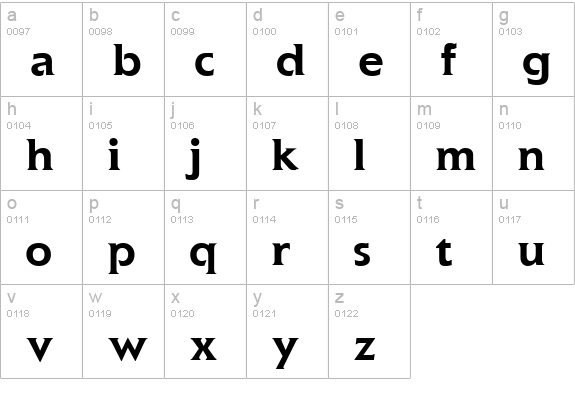
Elan Bold is a strong, high-contrast variant in the Elan typeface family \xE2\x80\x94 well suited to headlines, attention-grabbing titles, and strong calls-to-action.
Elan Bold font is a modern and elegant typeface that exudes sophistication and style. Its clean lines and sleek curves make it perfect for a wide range of design projects, from branding to editorial layouts. The bold weight of this font commands attention and adds a touch of drama to any text. What makes Elan Bold font even more appealing is that it is available for free download at FontsMarket.com. This means that you can elevate your designs without breaking the bank. Whether you are working on a logo, website, poster, or any other creative project, Elan Bold font will surely make a statement and leave a lasting impression. Download this versatile and eye-catching font today and take your designs to the next level.